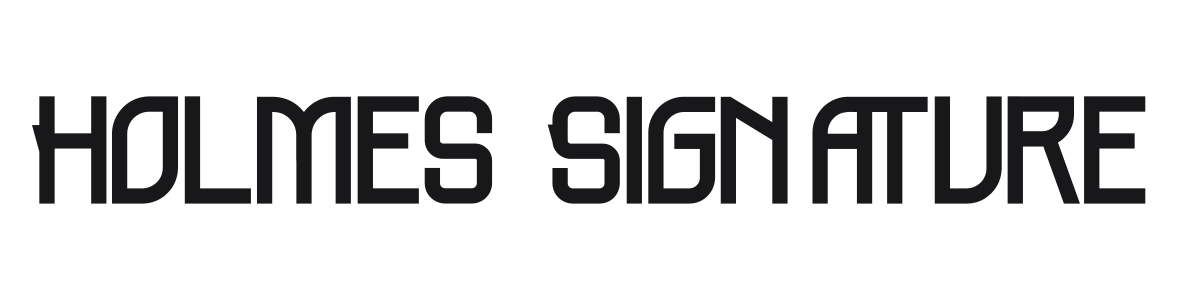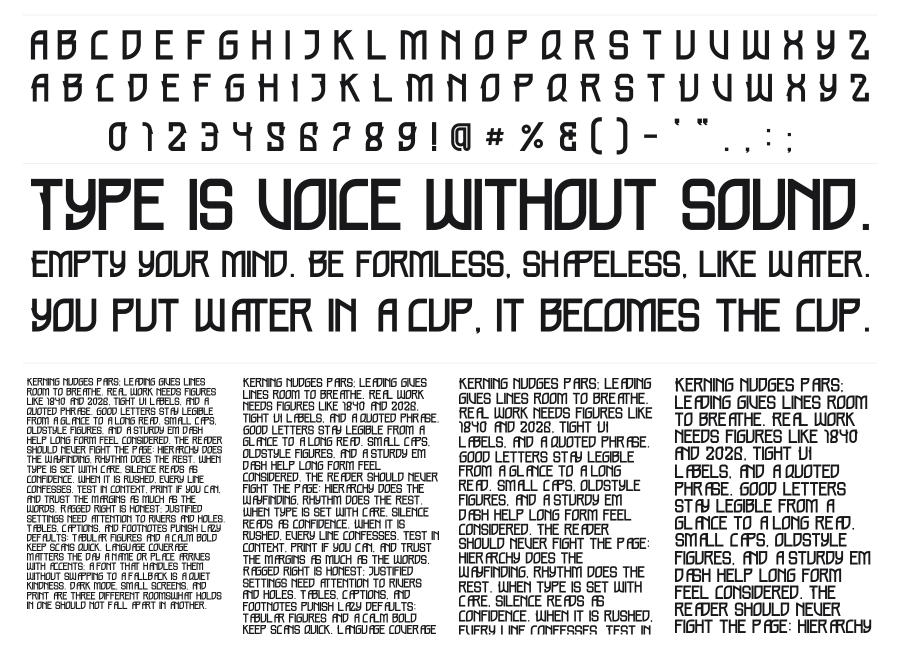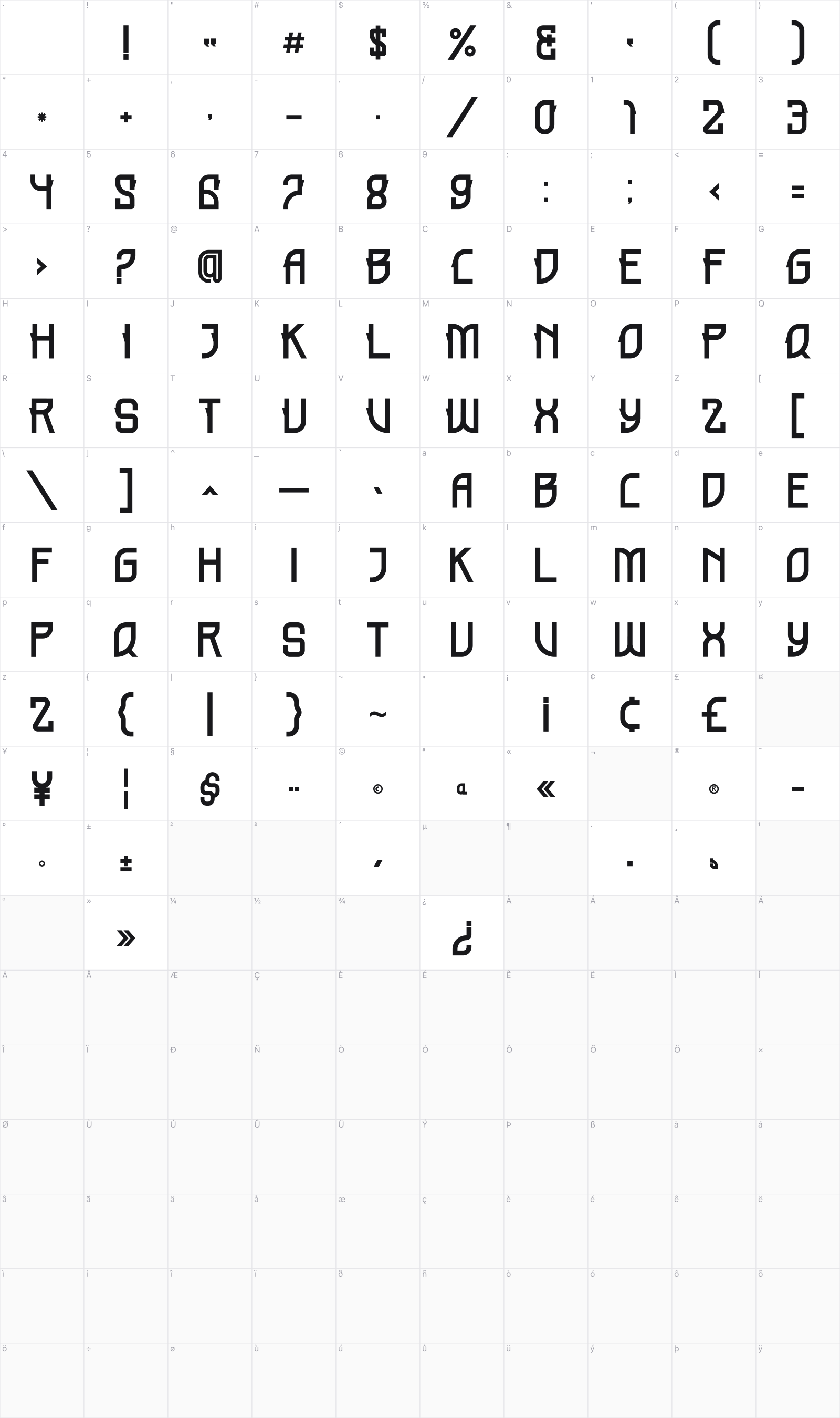
Holmes Signature
Holmes Signature is a tall, condensed geometric sans built on a strict modular grid with flat terminals and rounded interior counters. The heavy weight and squared construction give it a retro-futuristic character that references Art Deco signage and 1970s European display type. It carries a cinematic, detective-story energy without feeling costume-y.